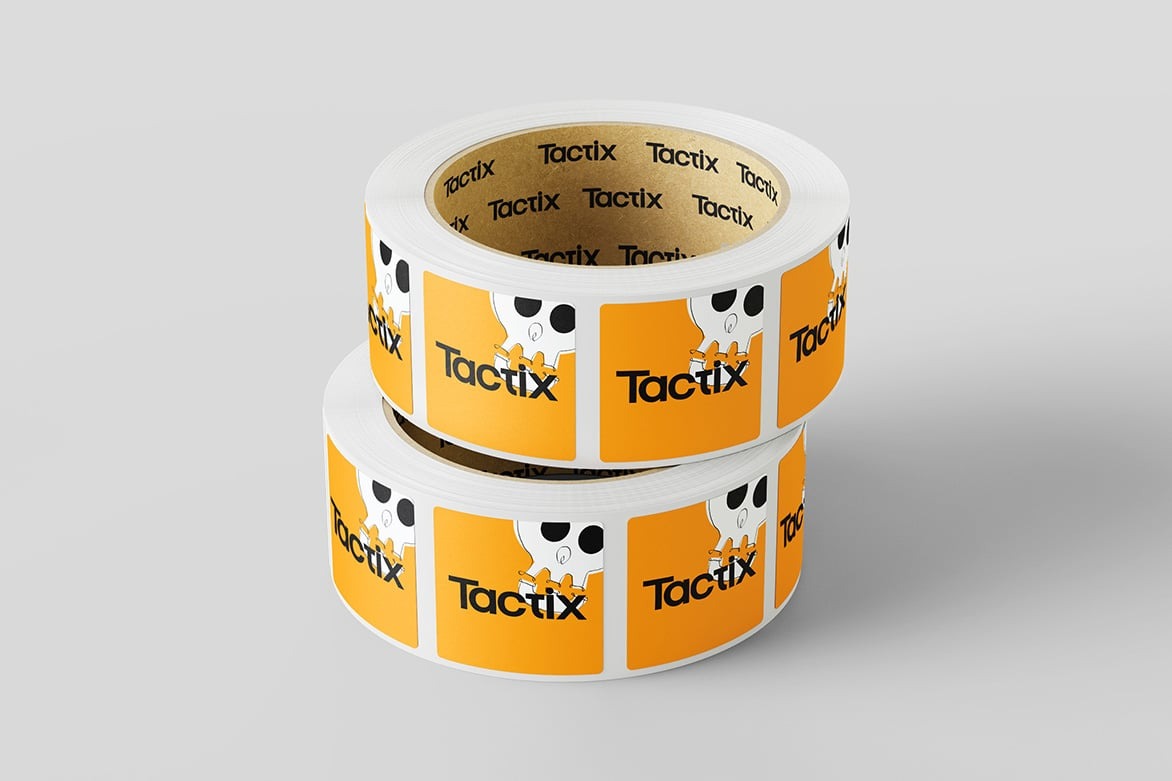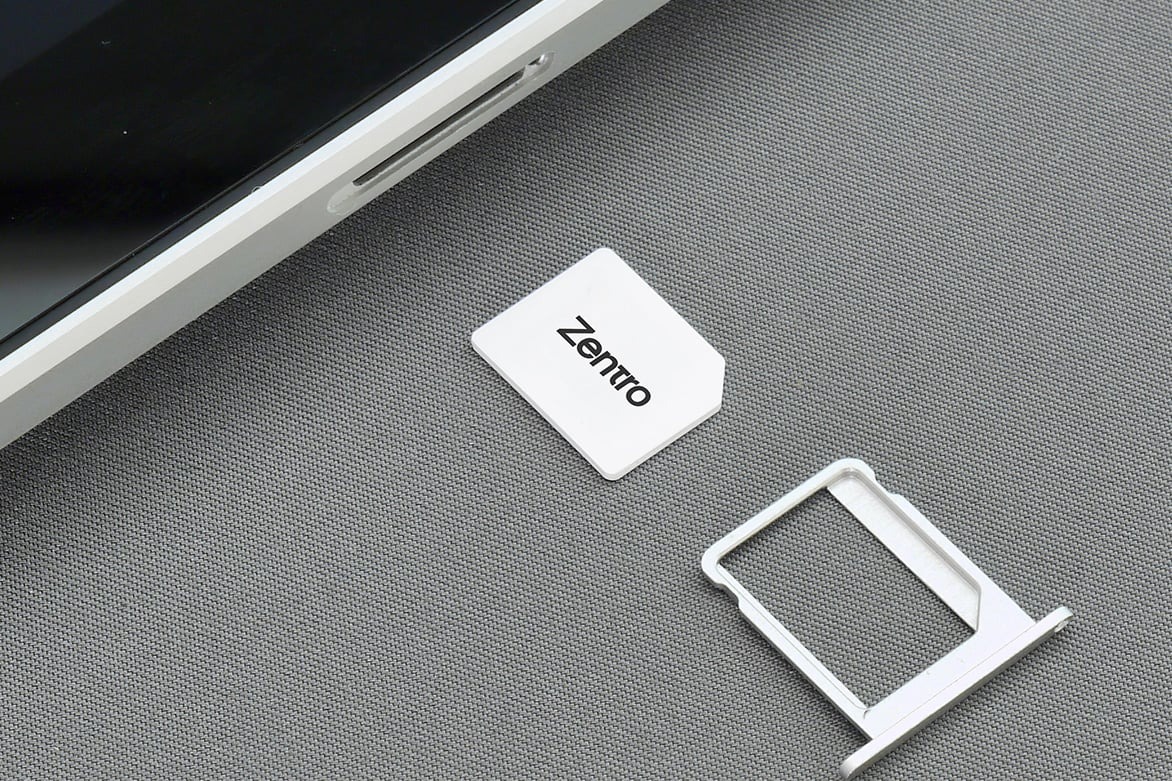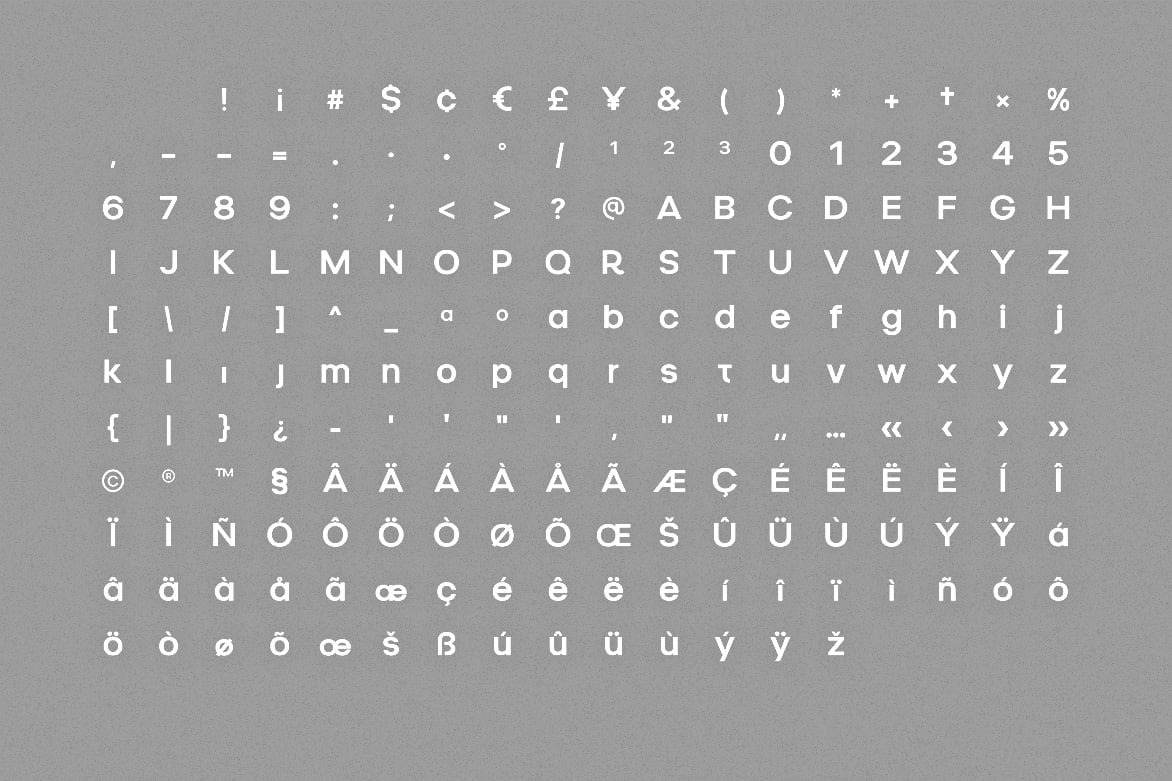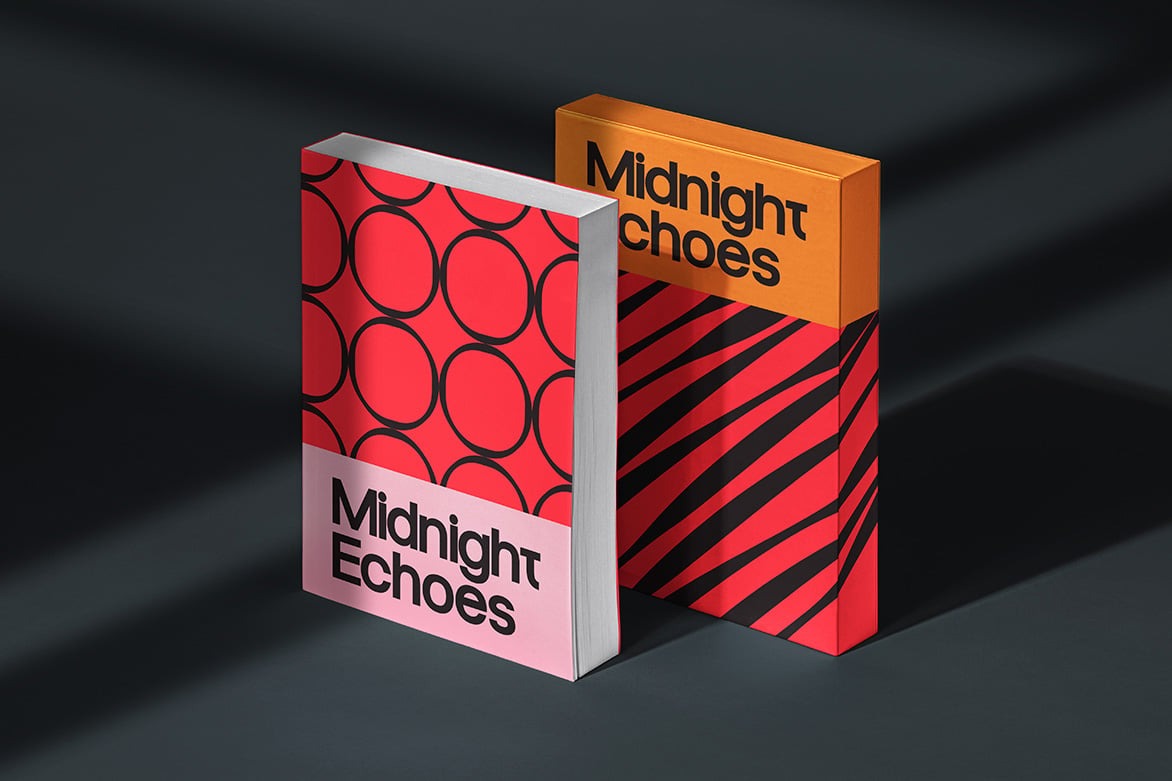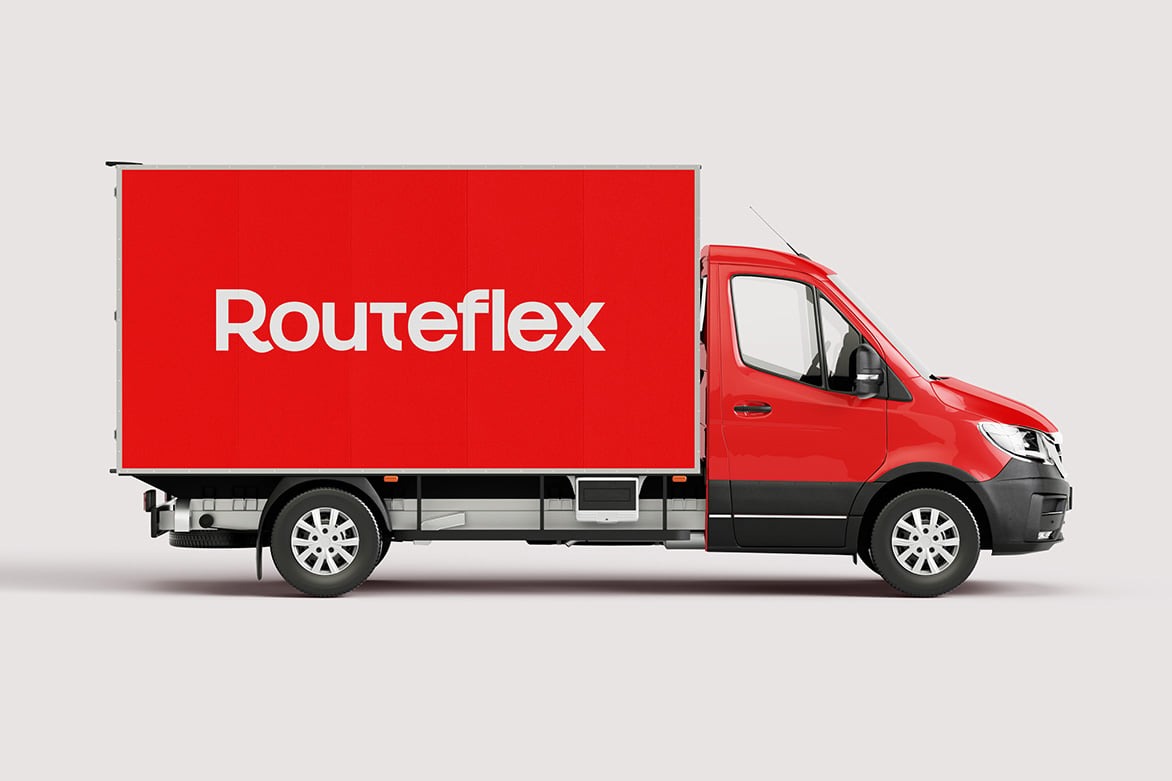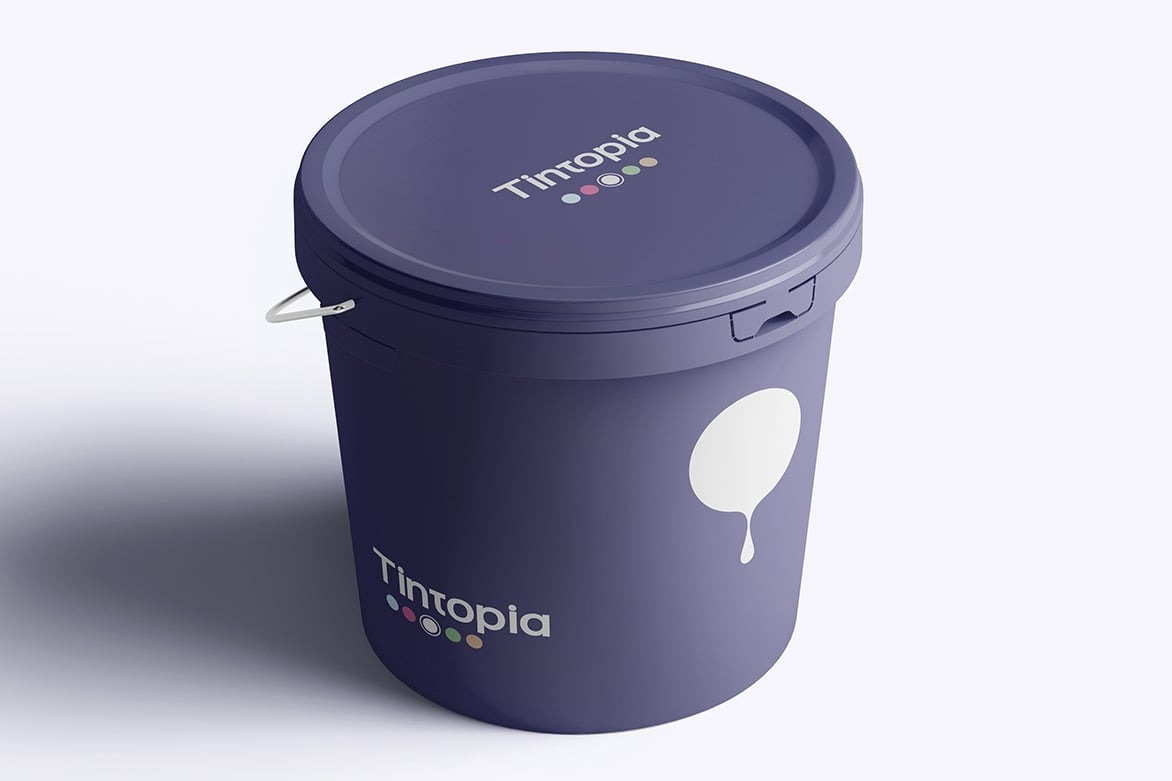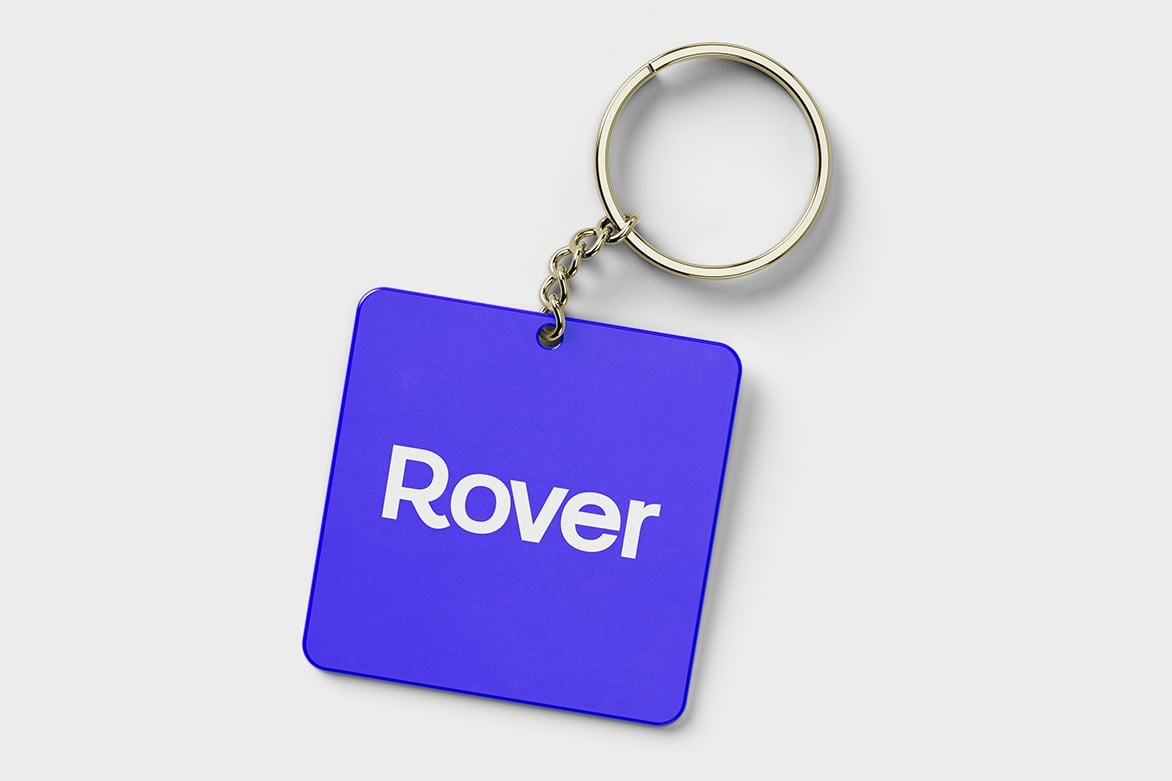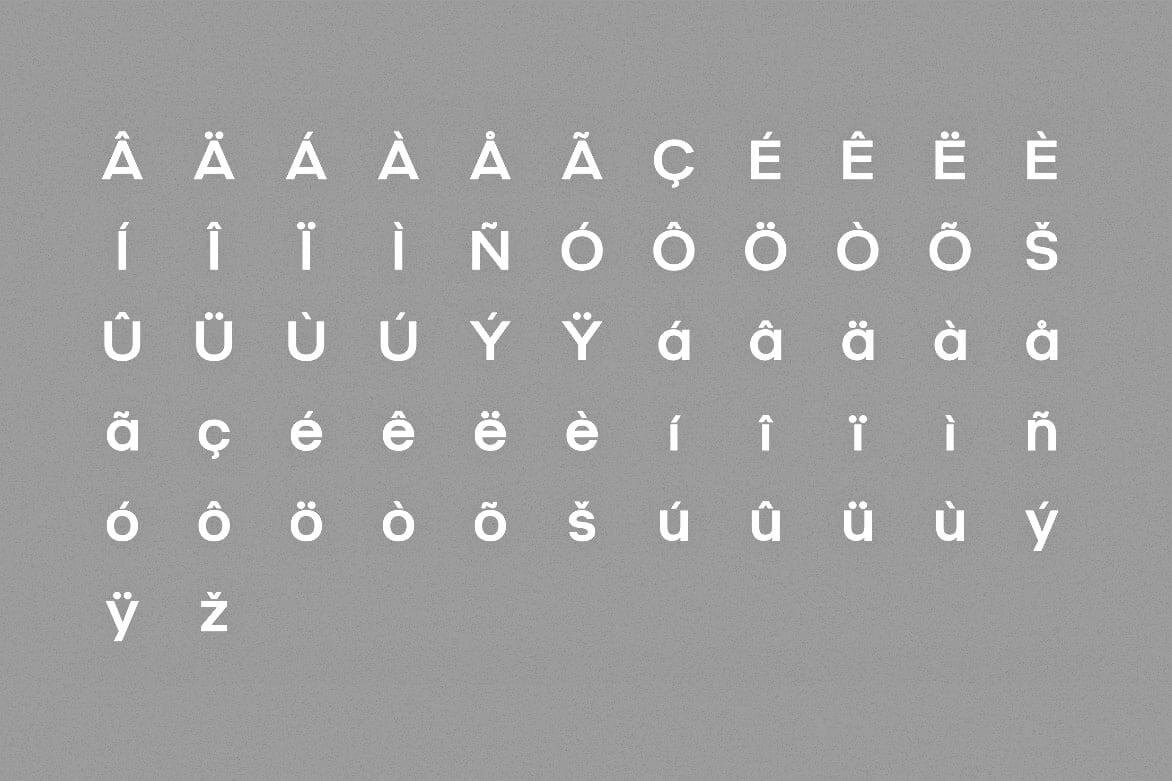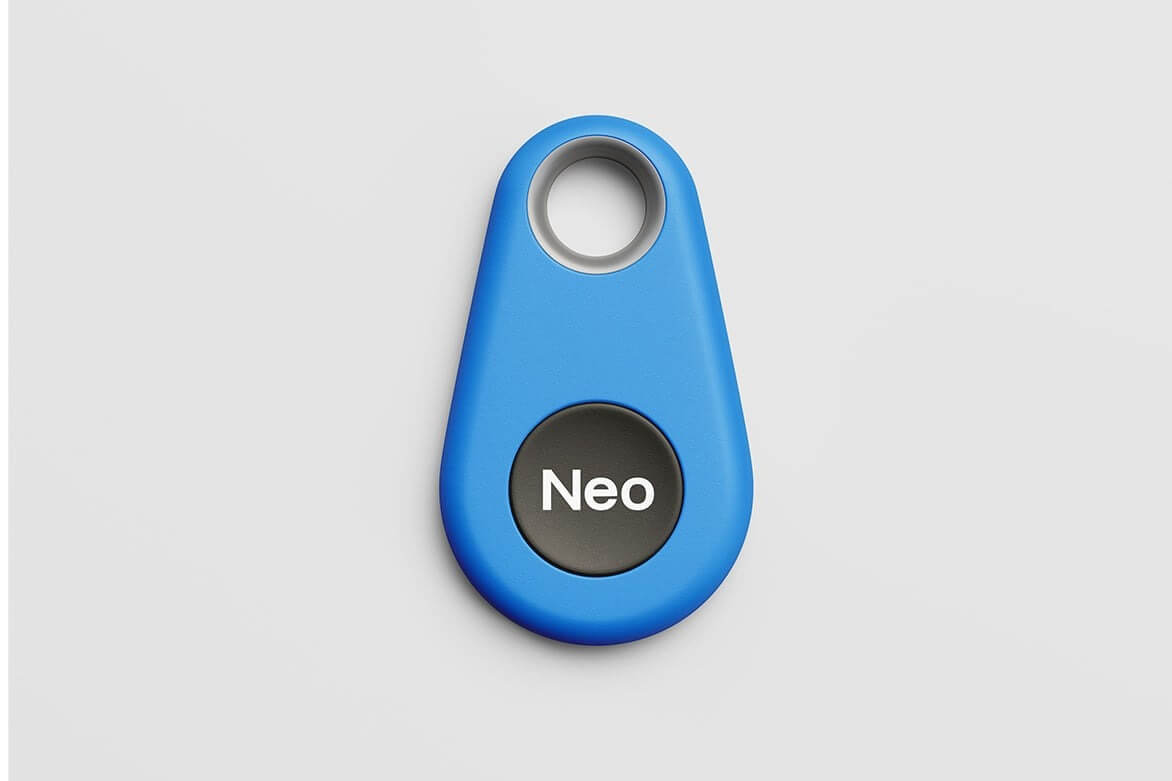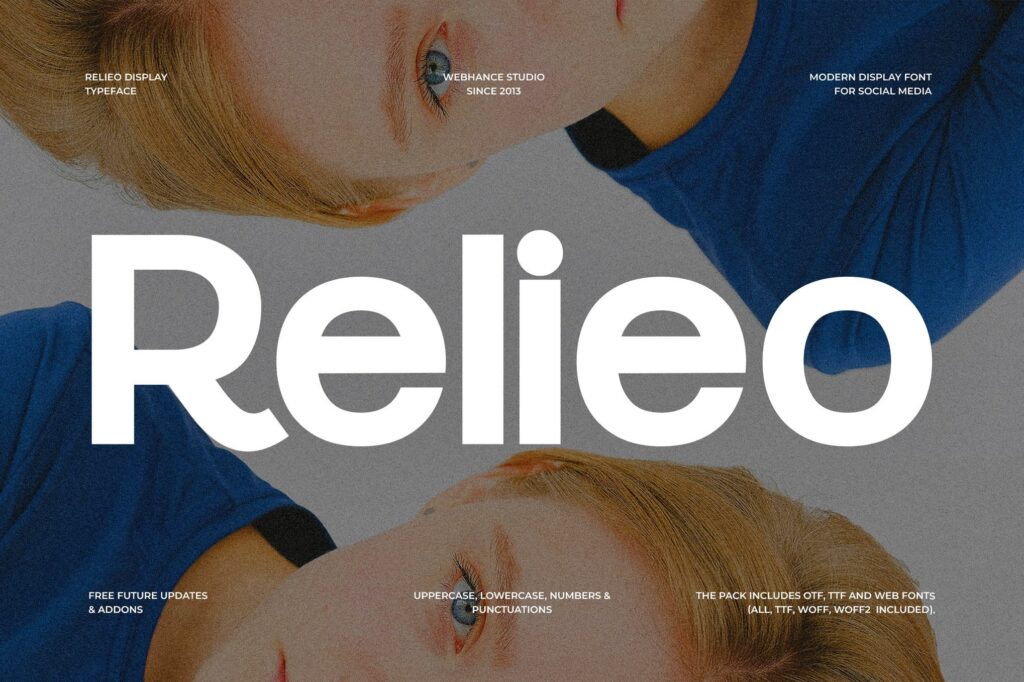
The Relieo Display font is a bold and modern sans-serif typeface crafted for designers who need impact, clarity, and versatility in their typography. With a strong geometric foundation, clean line work, and refined spacing, Relieo delivers standout results across branding, digital content, editorial layouts, and social media graphics.
Designed for visual power and aesthetic balance, the Relieo Display font features uppercase and lowercase letters, numerals, and punctuation—ensuring flexibility across different design contexts. Its minimal yet commanding structure makes it ideal for headlines, hero text, web banners, and mobile-friendly interfaces.
Whether you’re building a brand identity, creating scroll-stopping Instagram posts, or styling an online portfolio, Relieo offers a professional tone with just the right edge of creativity. The clean design enhances readability at any size, making it well-suited for both screen and print.
Bring precision and visual strength to your work with the Relieo Display font—a web-ready typeface that combines boldness and modernism in every stroke.
The Relieo Display font is a bold and modern sans-serif typeface crafted for designers who need impact, clarity, and versatility in their typography. With a strong geometric foundation, clean line work, and refined spacing, Relieo delivers standout results across branding, digital content, editorial layouts, and social media graphics.
Designed for visual power and aesthetic balance, the Relieo Display font features uppercase and lowercase letters, numerals, and punctuation—ensuring flexibility across different design contexts. Its minimal yet commanding structure makes it ideal for headlines, hero text, web banners, and mobile-friendly interfaces.
Whether you're building a brand identity, creating scroll-stopping Instagram posts, or styling an online portfolio, Relieo offers a professional tone with just the right edge of creativity. The clean design enhances readability at any size, making it well-suited for both screen and print.
Bring precision and visual strength to your work with the Relieo Display font—a web-ready typeface that combines boldness and modernism in every stroke.